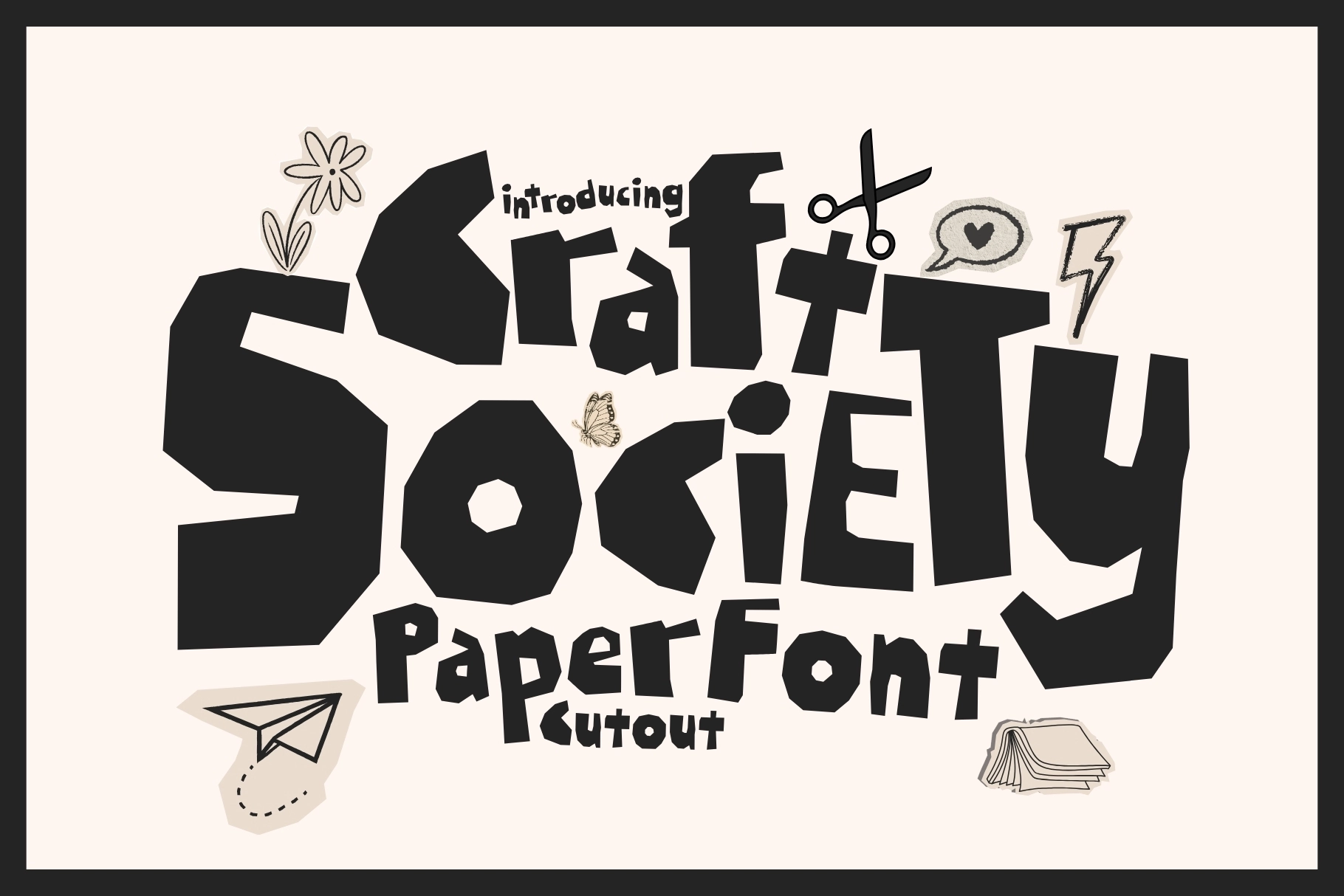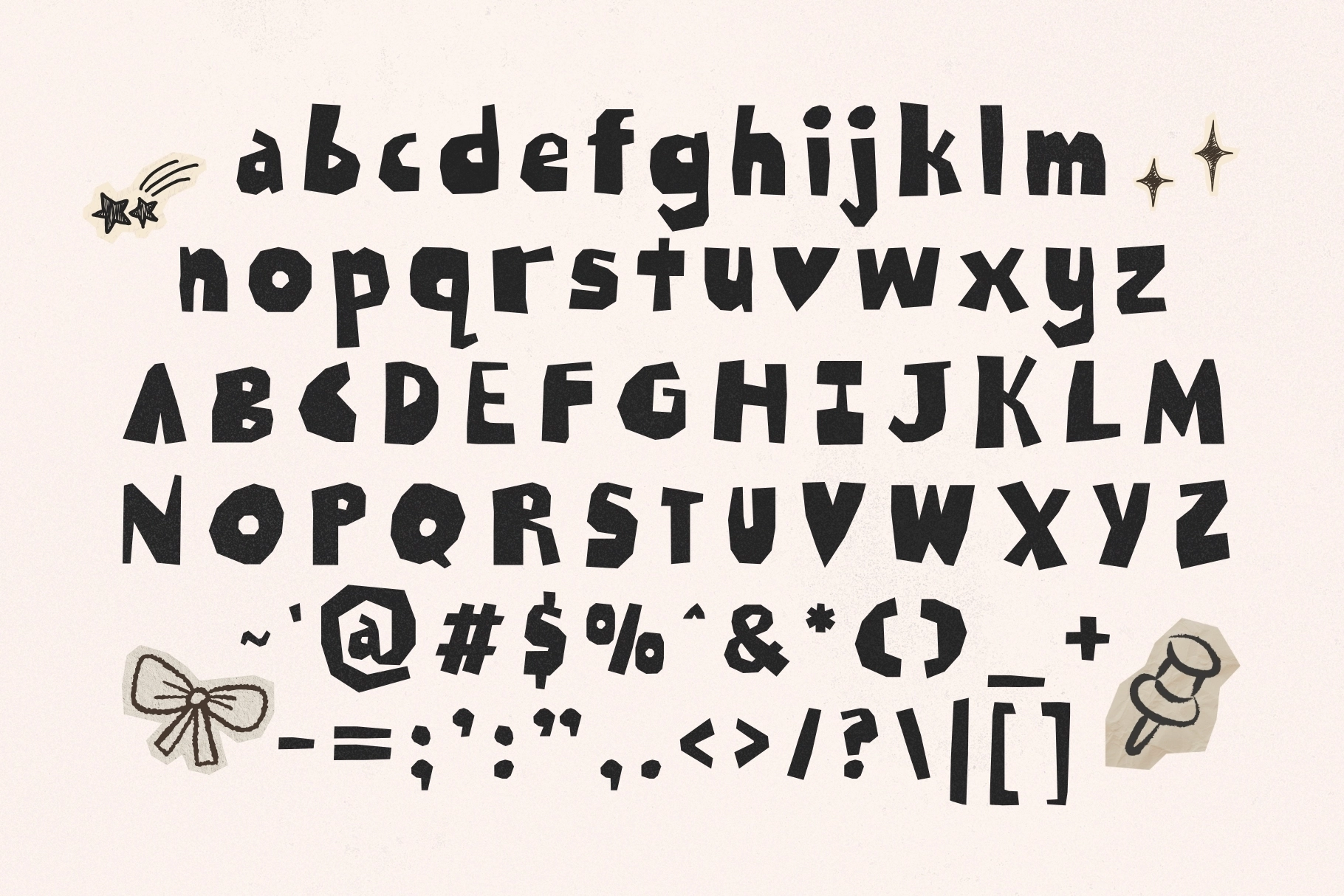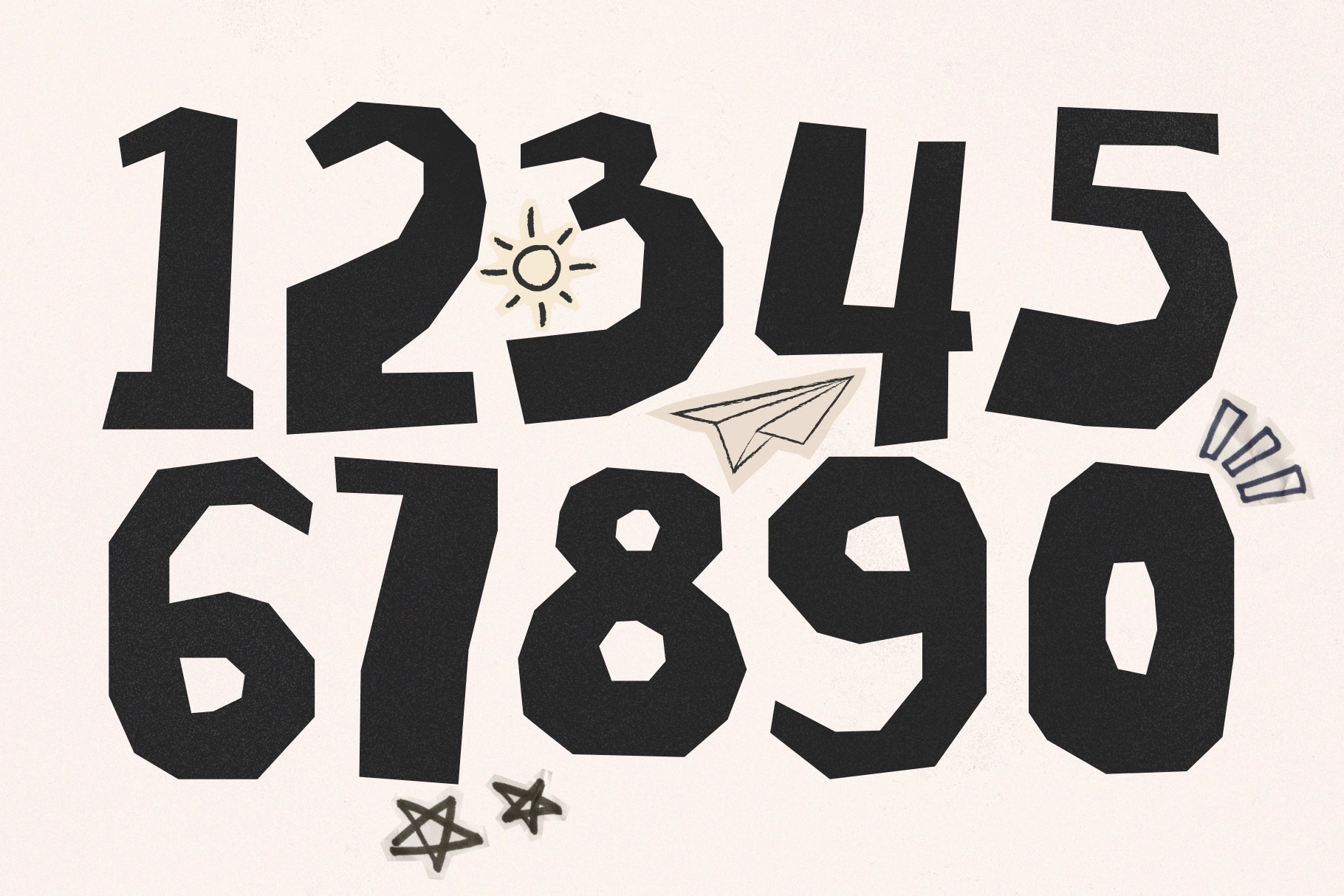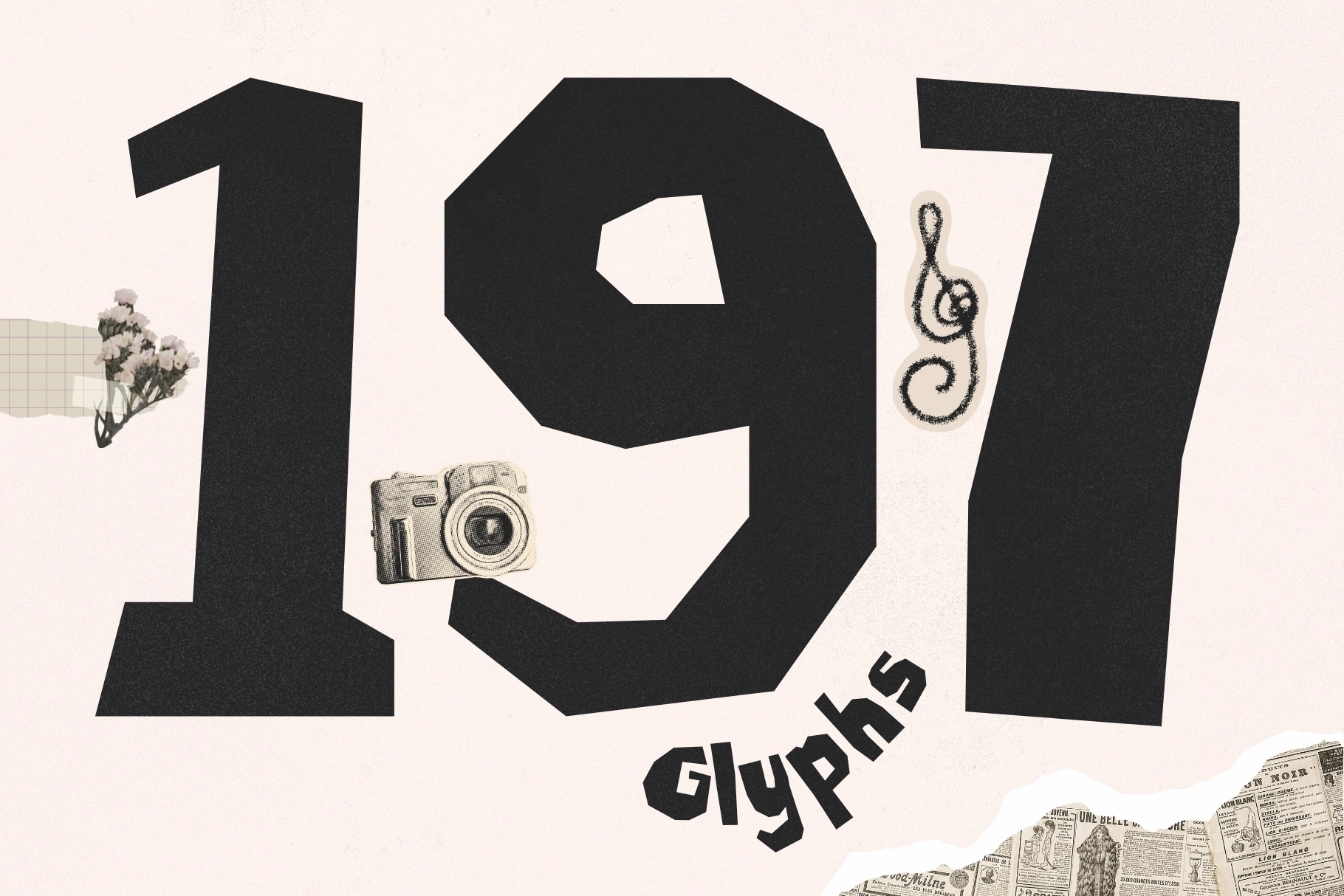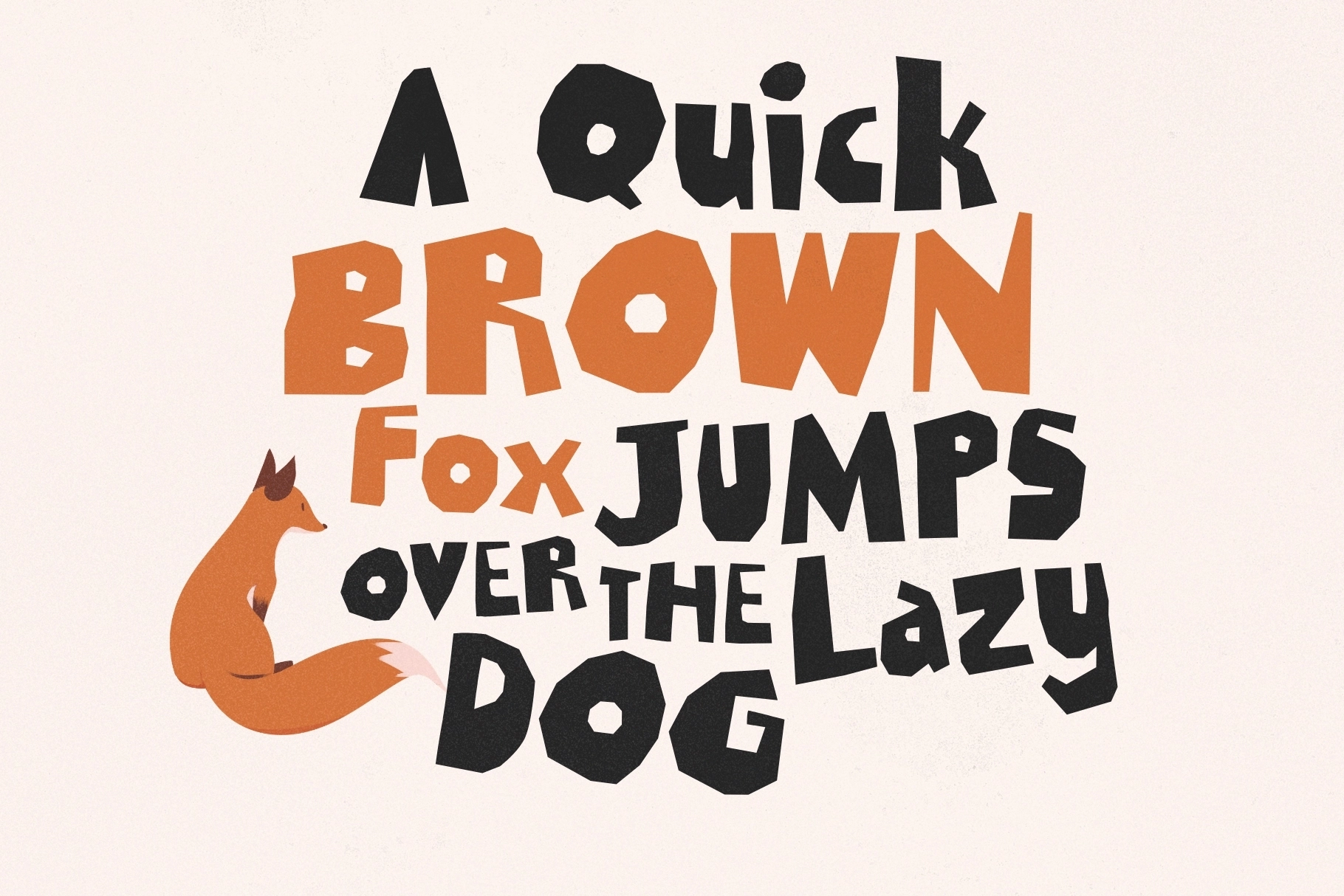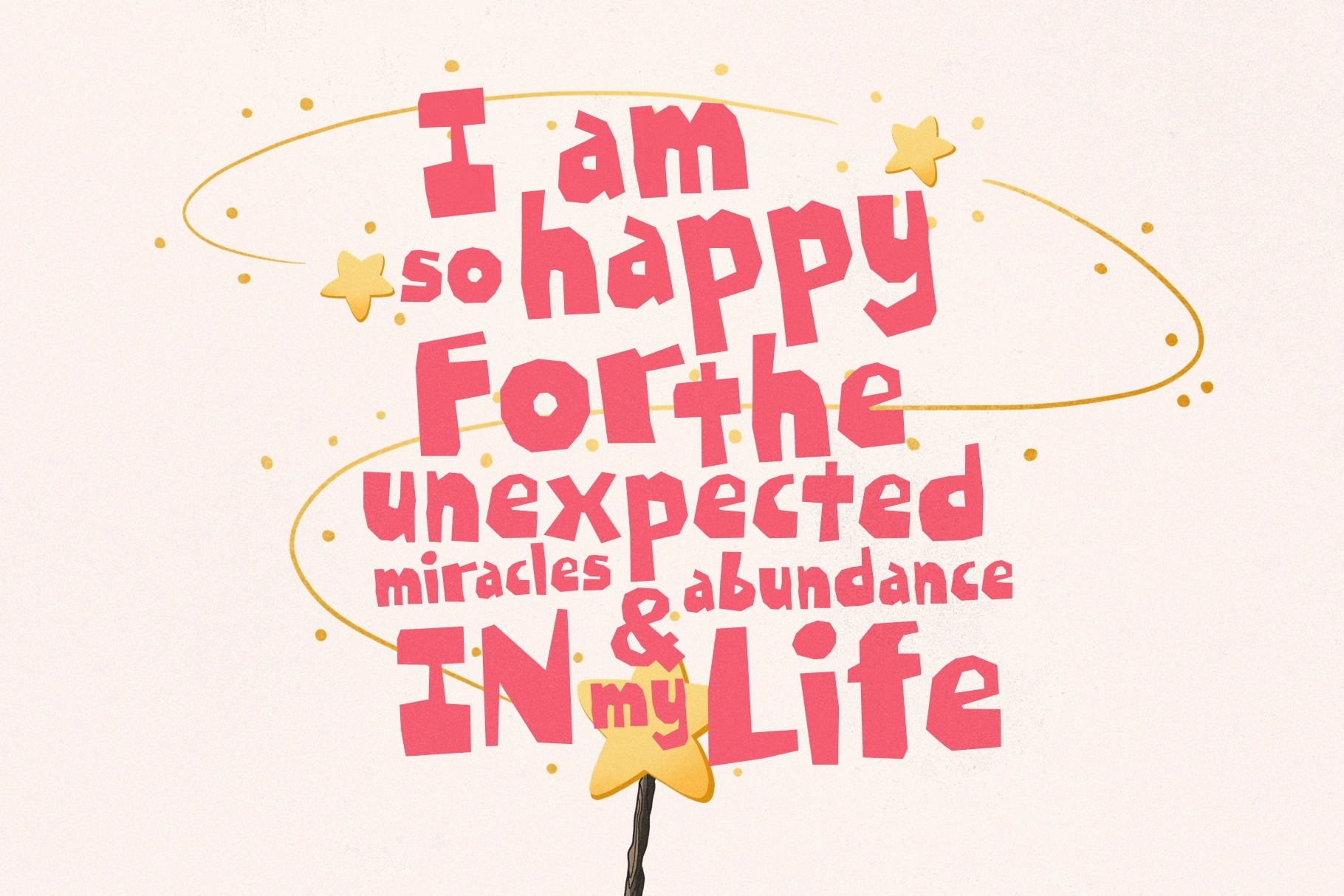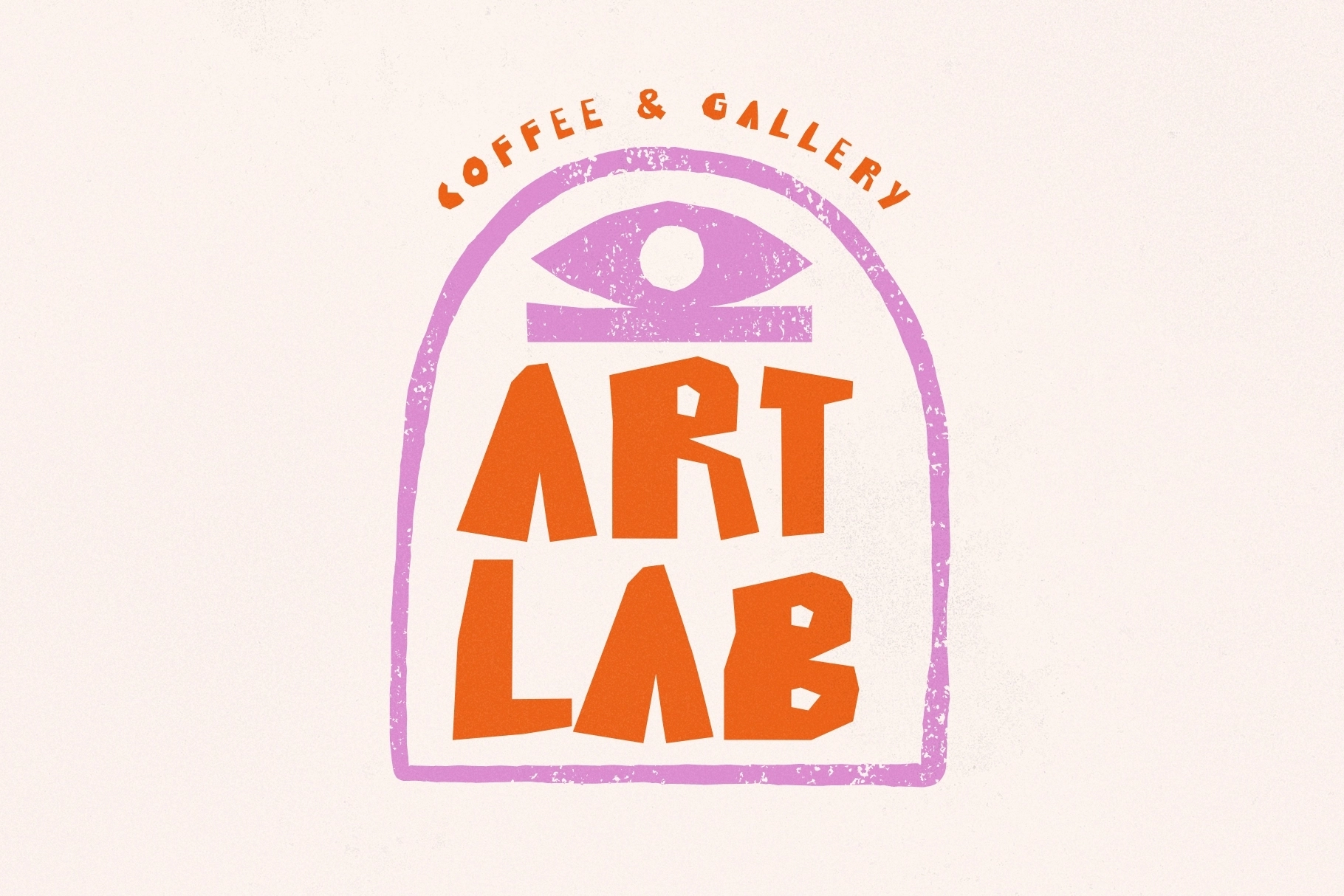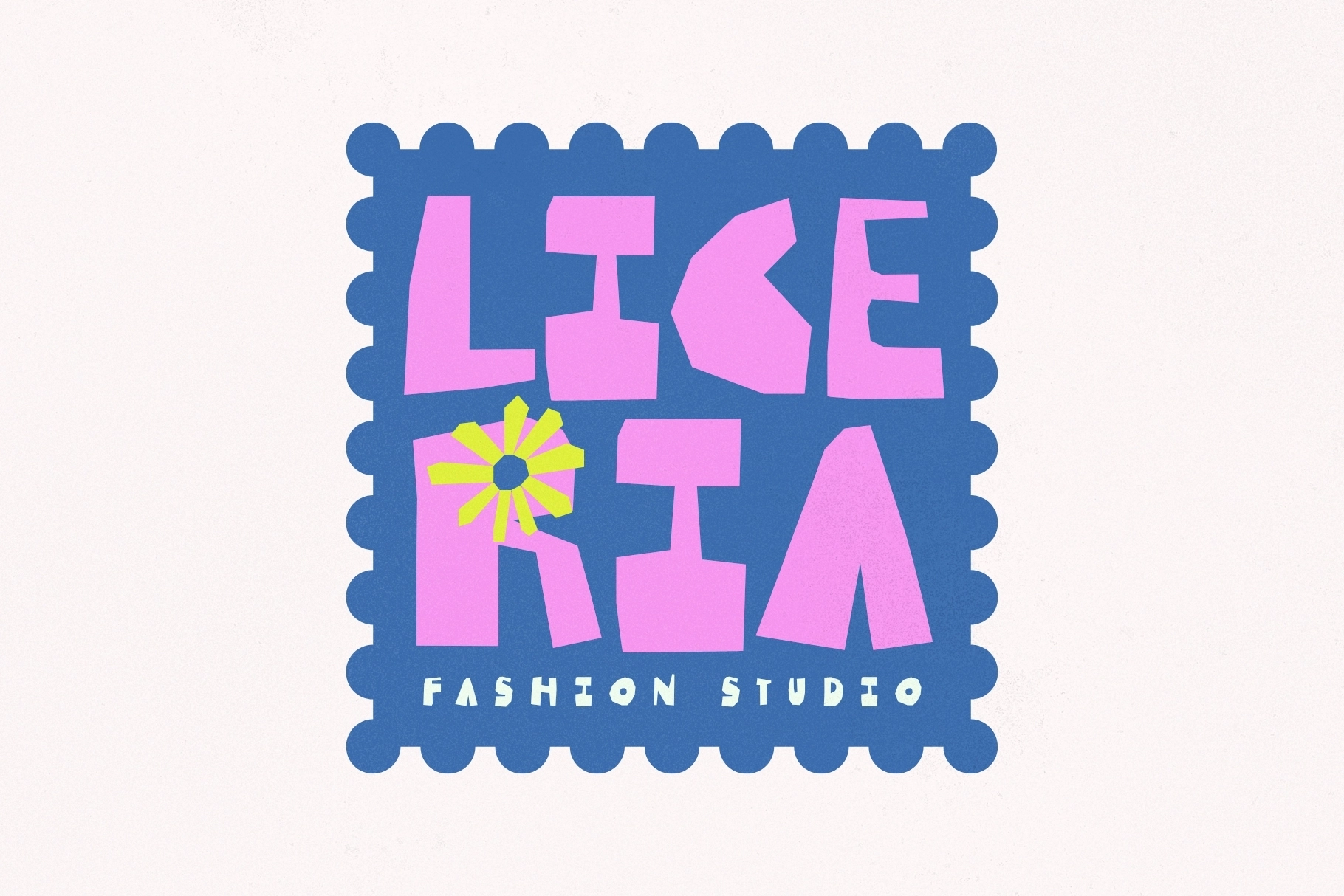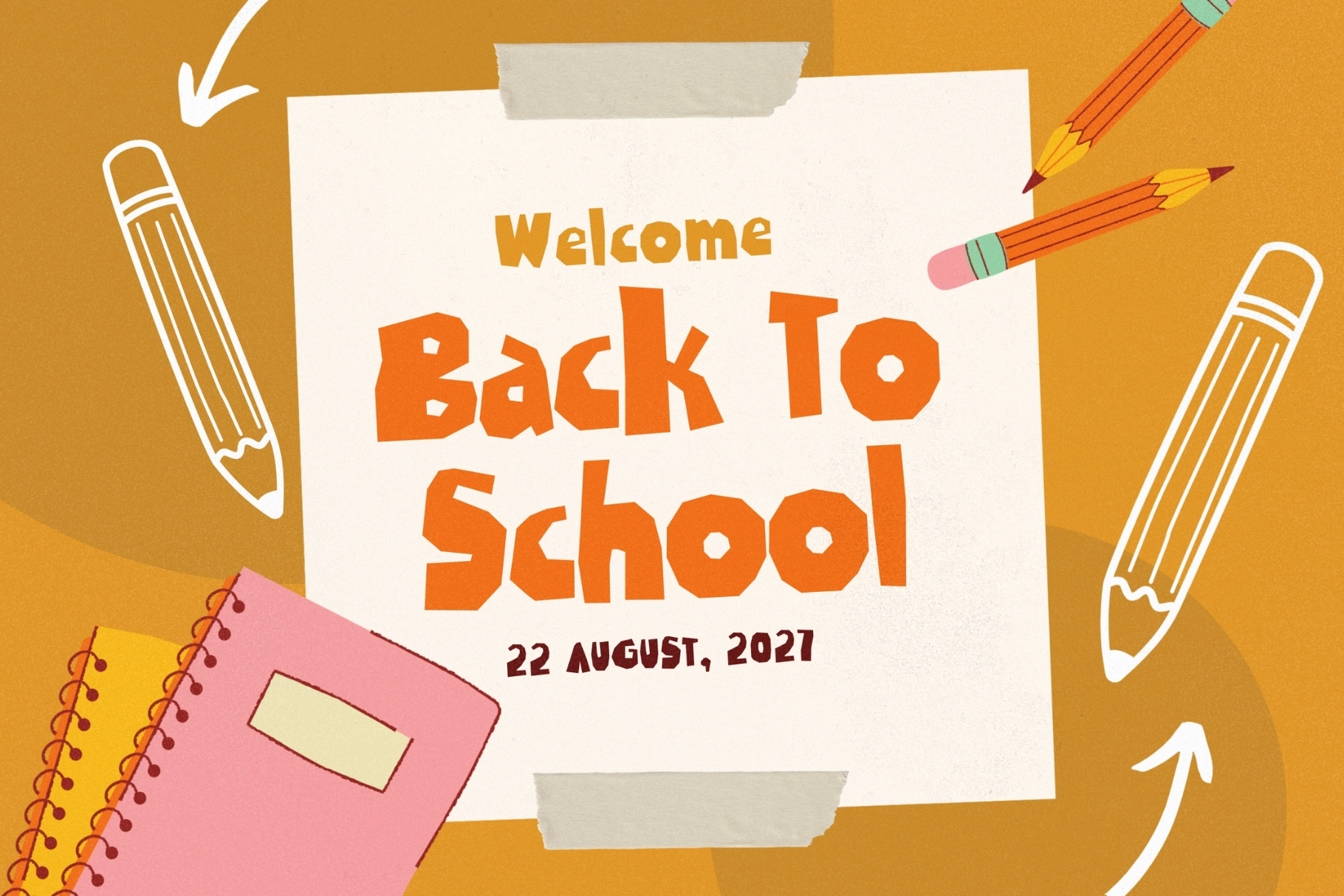
Craft Society - Paper Cut Display Font
Craft Society
Craft Society - Paper Cut Display Font is a bold typeface that captures the authentic look of handcrafted lettering. Inspired by cut-out paper shapes, it features irregular forms, sharp edges, and layered details that create a tactile, artistic feel with a playful yet edgy character.
Built with a strong DIY aesthetic, this display font adds a modern and experimental touch to any design. Perfect for posters, branding, editorial layouts, and creative projects, it delivers a unique handcrafted style that stands out with striking visual impact.
- Handmade Cut Paper Style
- Unique Irregular Letterforms